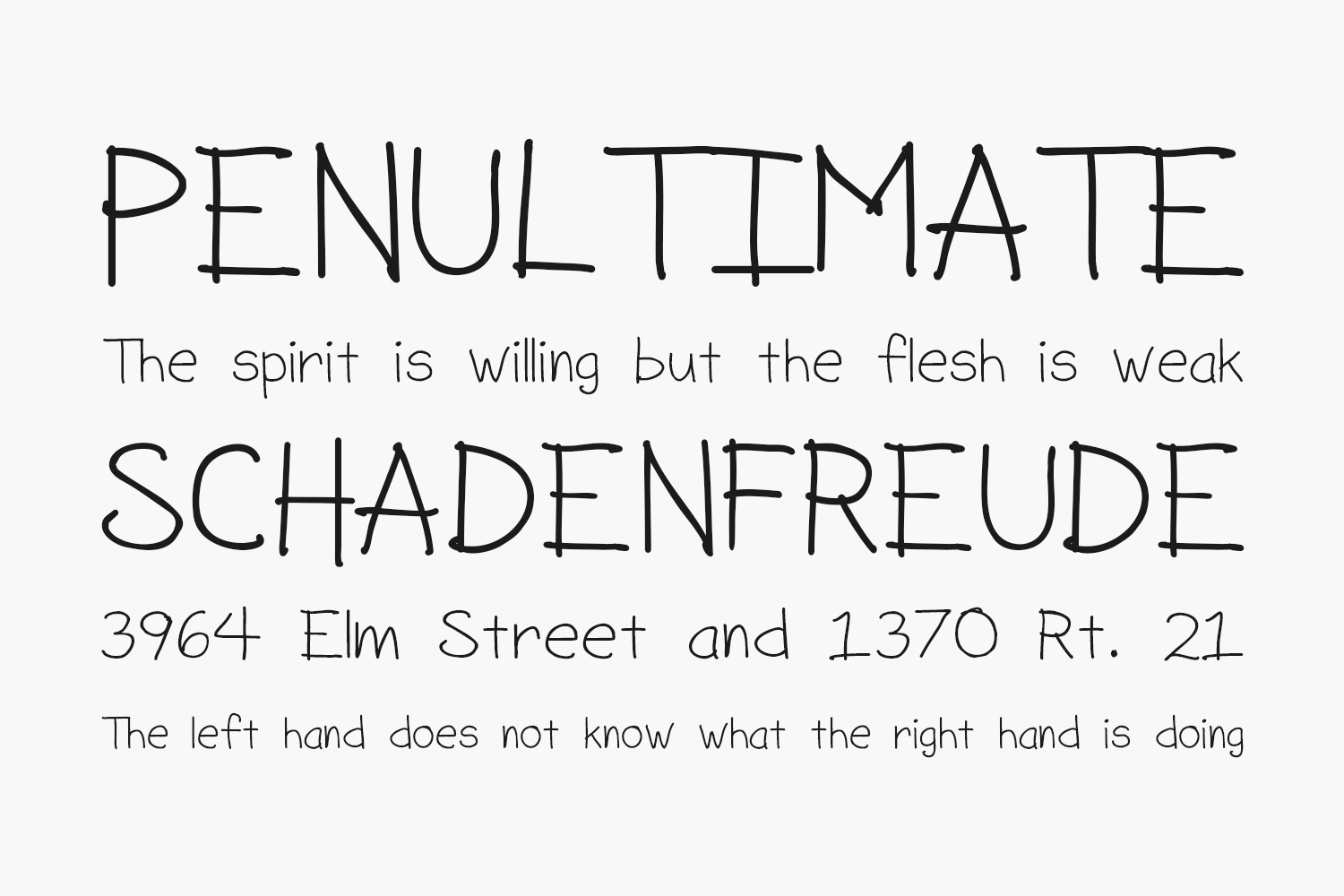
Sorbet LTD Free Font was designed with freshness and youth in mind. Sorbet is a casual, sans-serif font perfect for scrapbooking, teaching, and everyday notes in mind. It is a modest type with lots of potential.
What was the inspiration for designing the font? Sorbet was inspired by fresh, casual, handwriting.
What are its main characteristics and features? It is legible, sans serif, includes standard encoding (umlauts, etc)
Usage recommendations – teaching, everyday, invitations, novelty, scrapbooking.